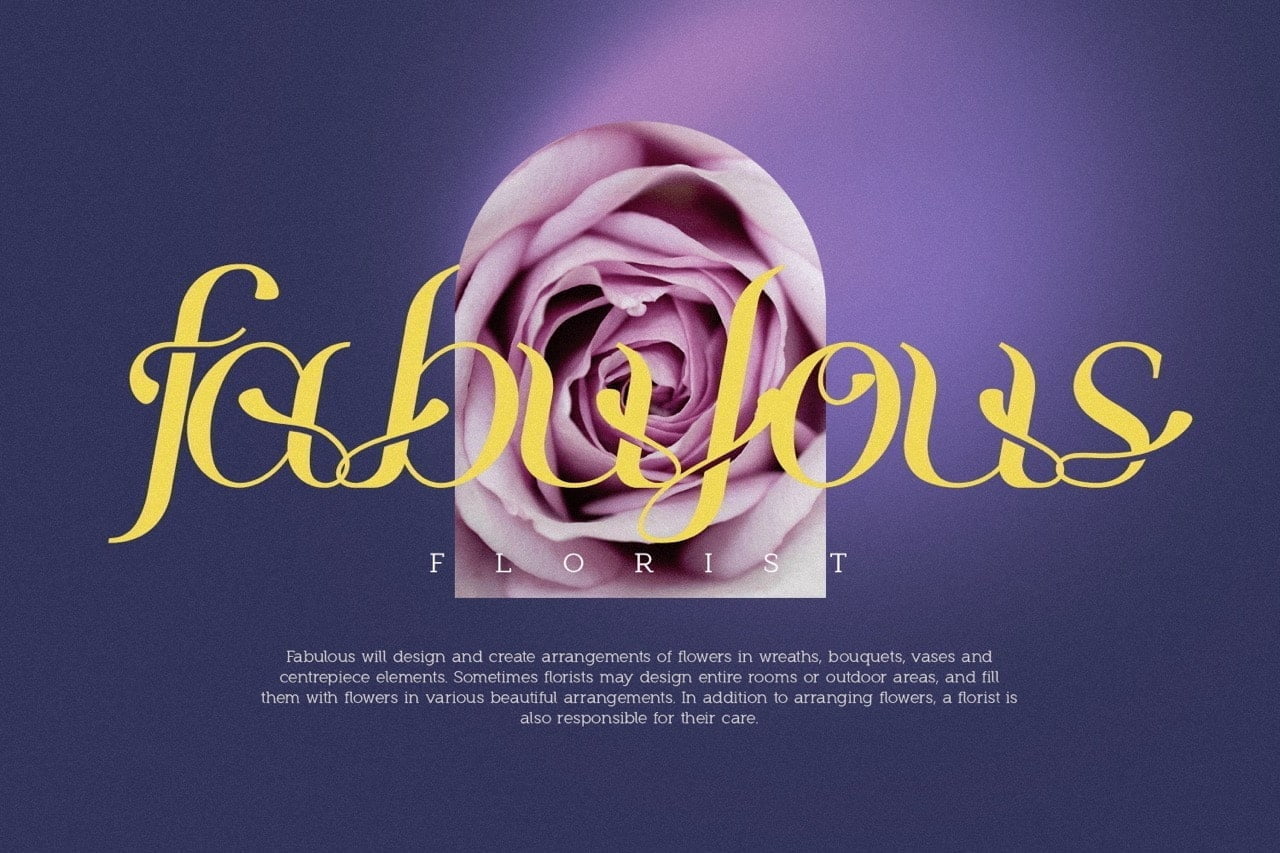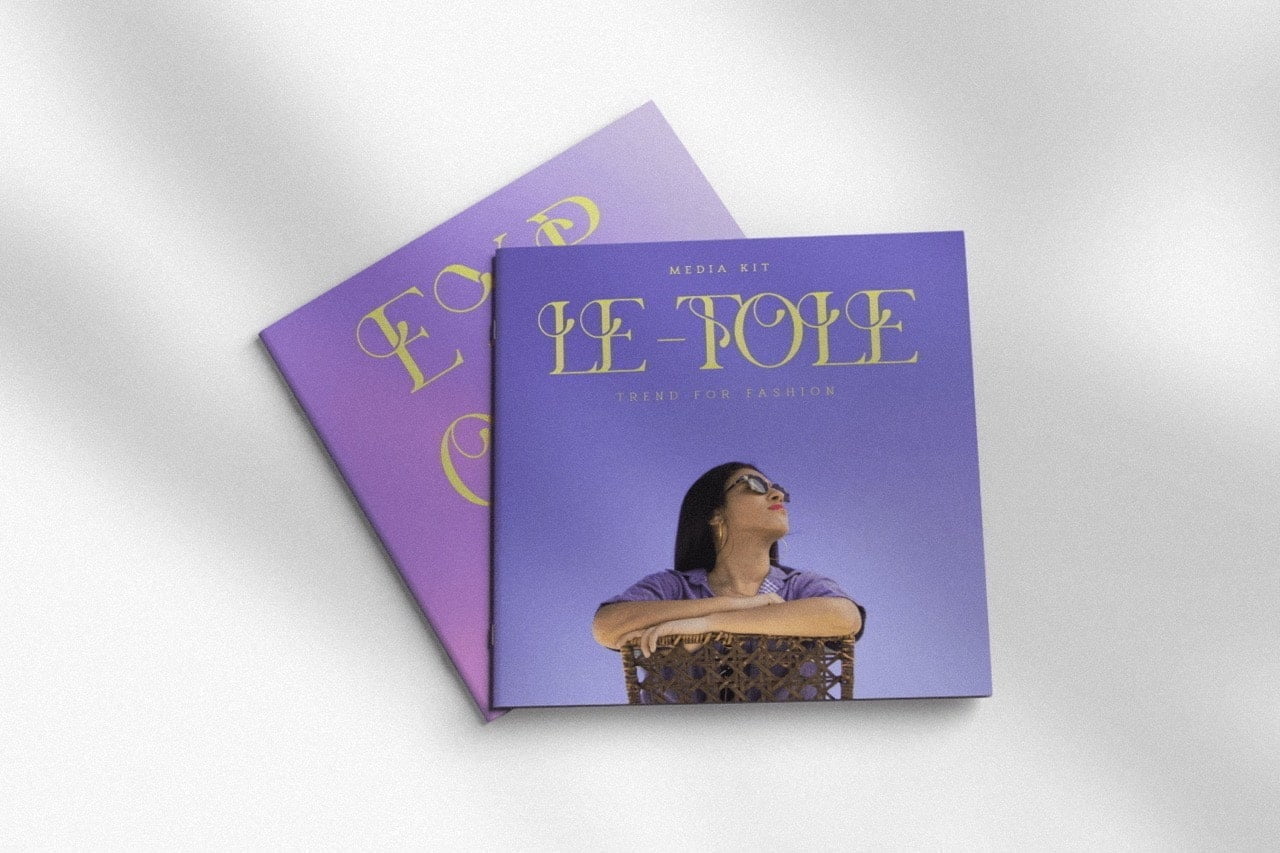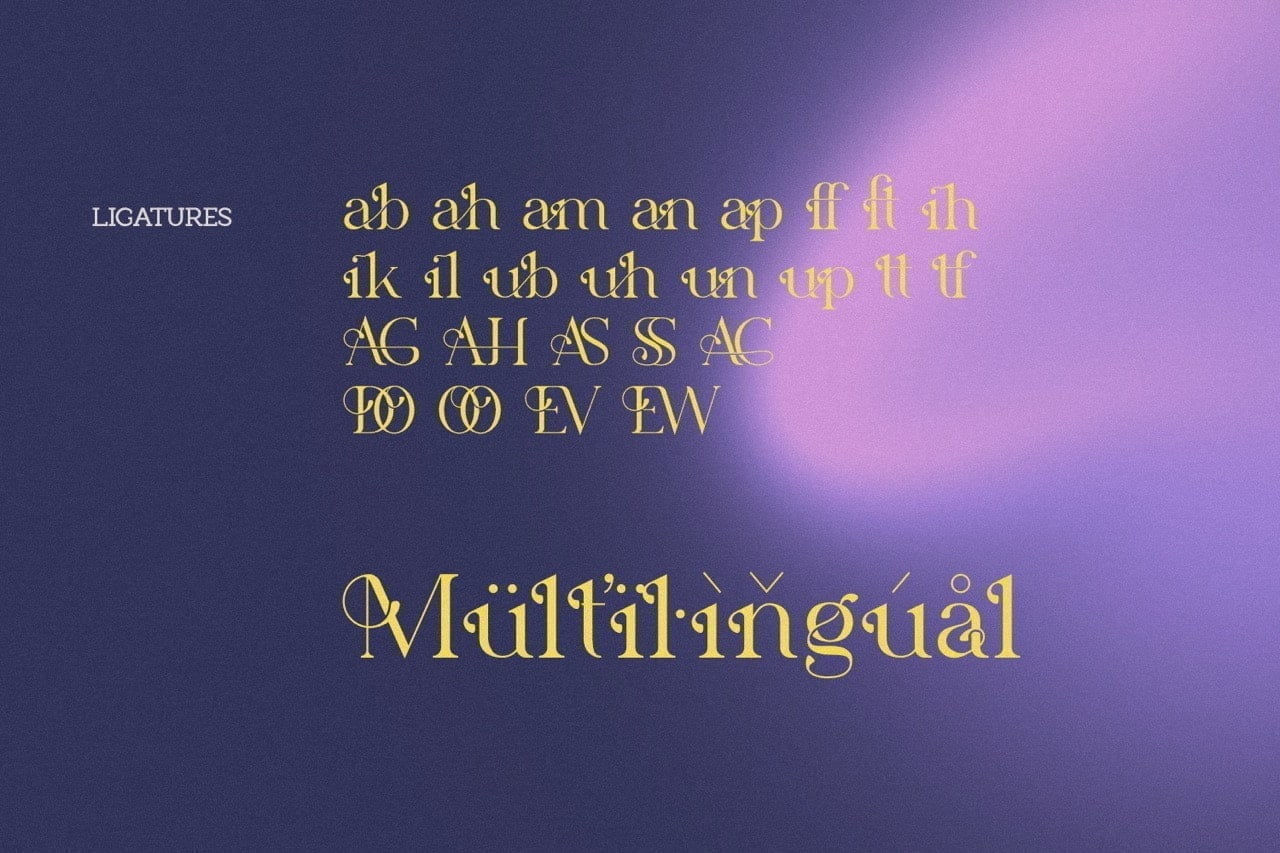
UnFleur is a serif typeface with a classic, old-world style that can be used as a platform for any project. It has soft edges and feminine qualities, but is versatile enough to work with masculine projects. This makes it perfect for use across a variety of design styles and industries.
- 2 Styles (Regular and Italic)
- Stylistic Ligatures
UnFleur Feminine Font